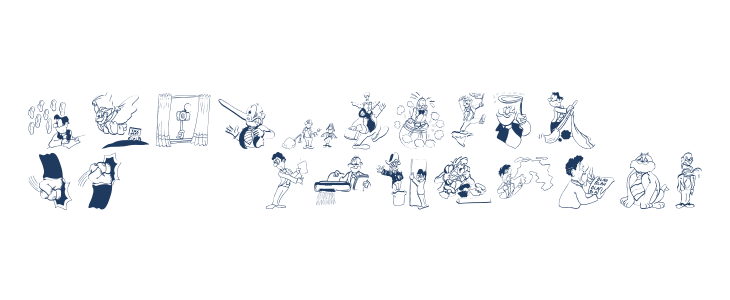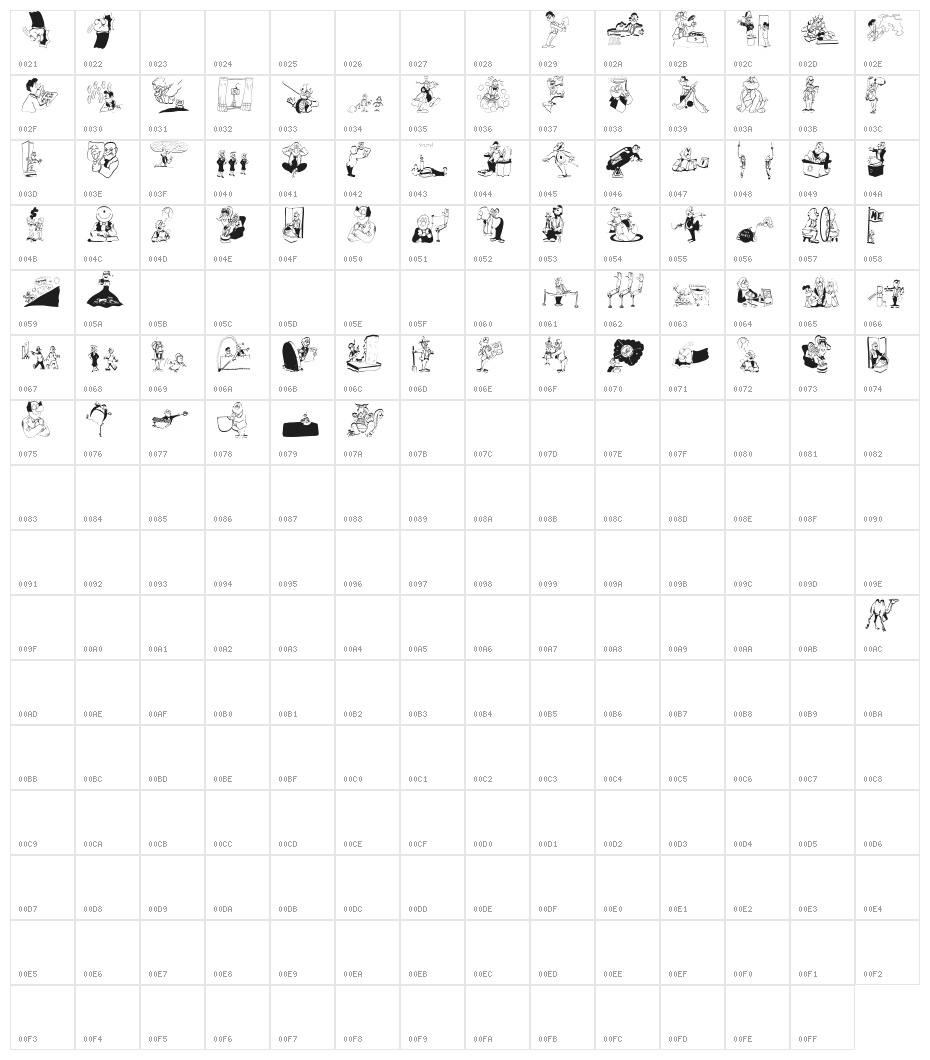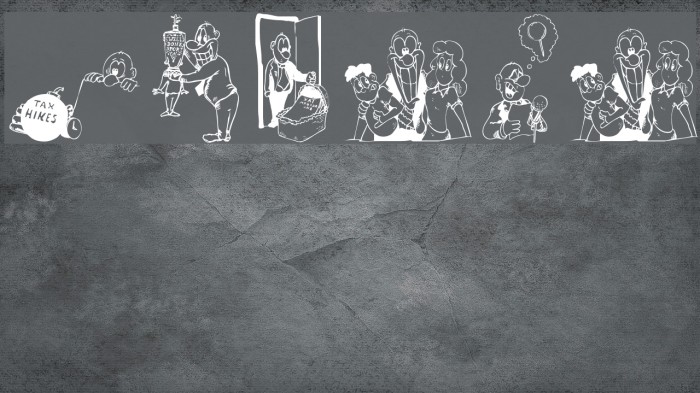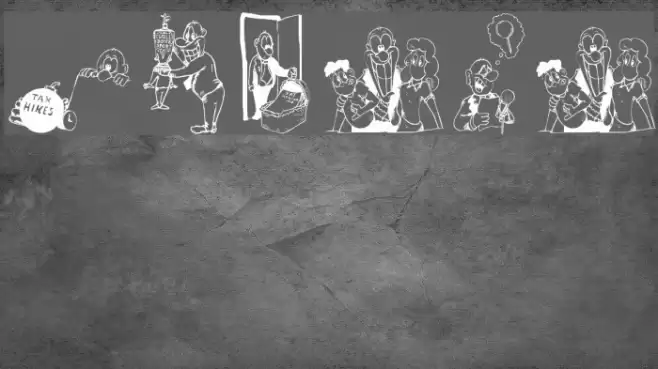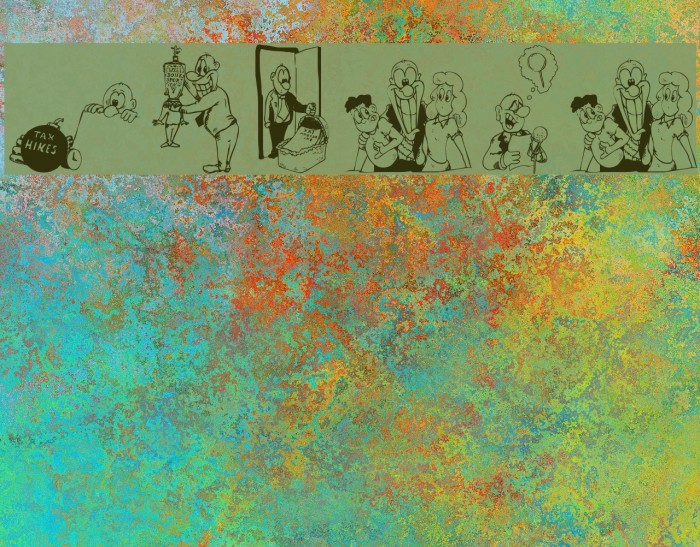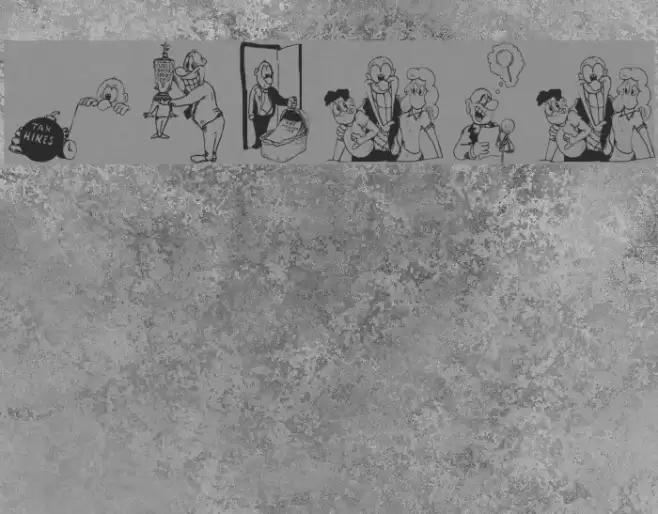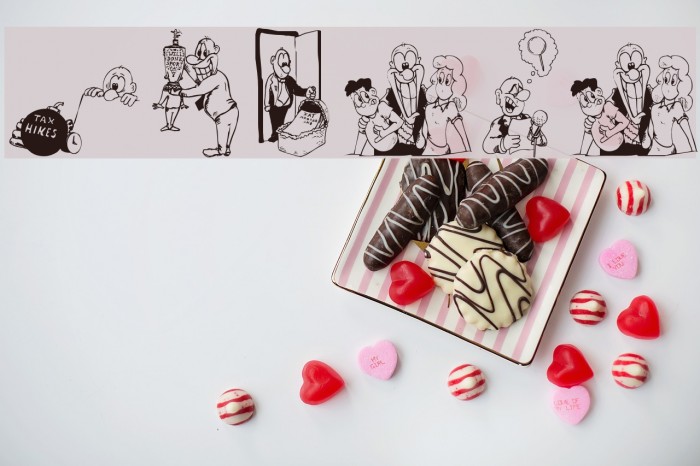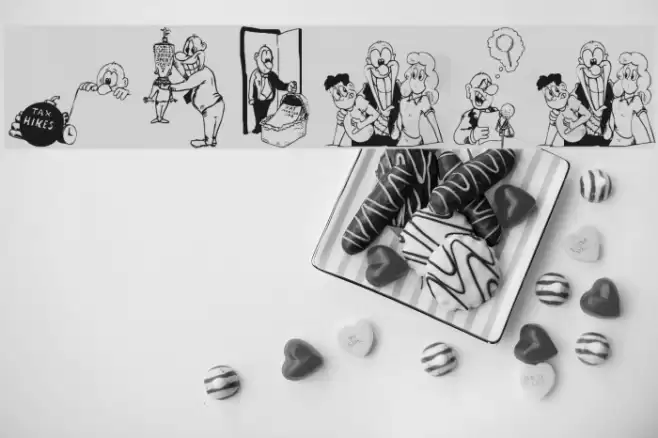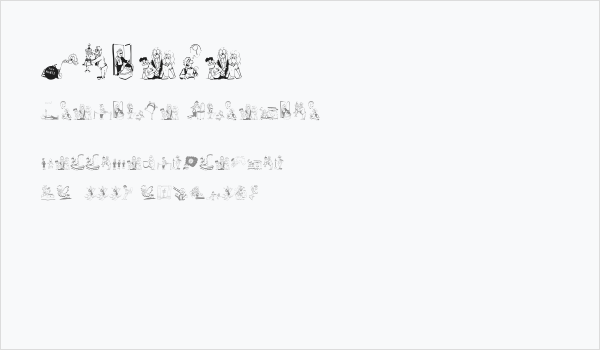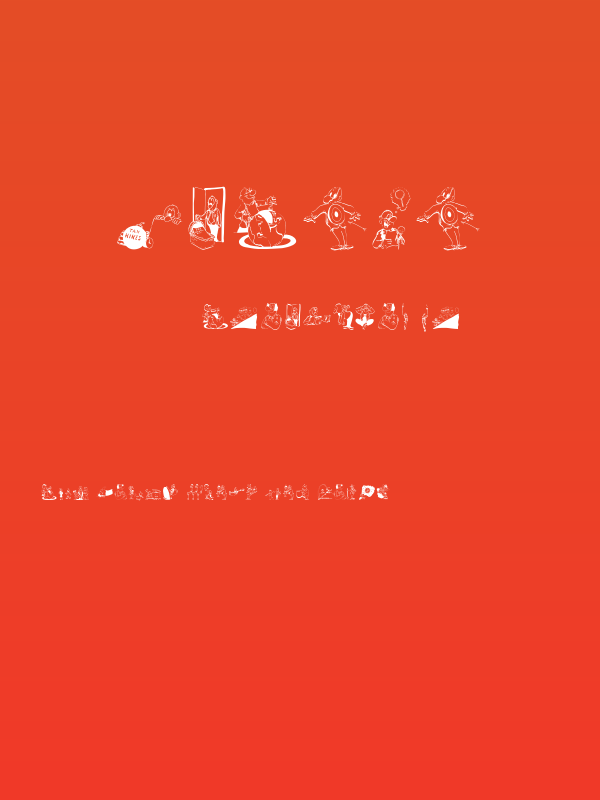
VoteMe Font
VoteMe Description
A playful and whimsical decorative font composed entirely of unique cartoon-style illustrations representing each character, with each letter and symbol depicted as a humorous scene or character. The style is hand-drawn, with varying line thickness and a lively, informal feel.
| Overall Style | Whimsical, Playful, Hand-drawn |
| Use Case | Headlines, Posters, Children's materials, Logos |
| Proposed Projects | Children's books, comic titles, playful posters, party invitations, educational materials. |